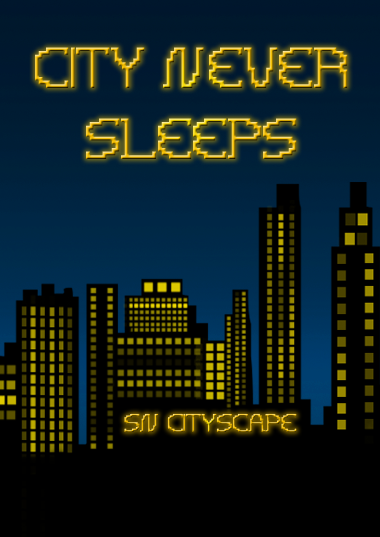
sn Cityscape
Inspired by the city lights and buildings of the metropolitan.
Very interesting. It will look great as a scrolling marquee of bright, glowing text.